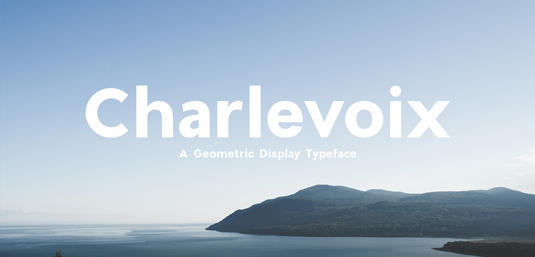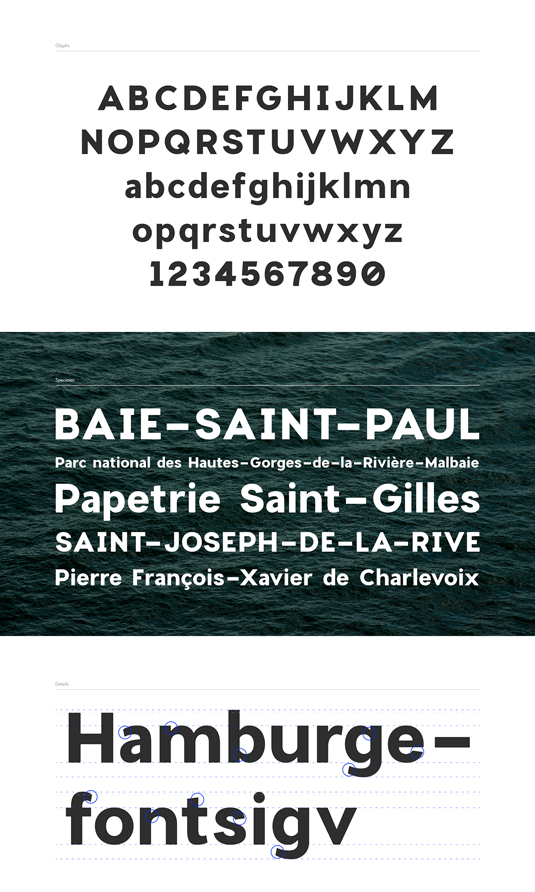
Font of the day: Charlevoix
Charlevoix by Mathieu Desjardins
Senior art director Mathieu Desjardins is no stranger to our font of the day section with this beautiful type designs. And his latest offering, Charlevoix, is no exception. "Charlevoix is a beautiful display typeface," he comments. "It is strong, bold and wavy like the Quebec region's beautiful landscape. Its slightly rounded corners remind us of older prints where letters were never sharp at the edges."